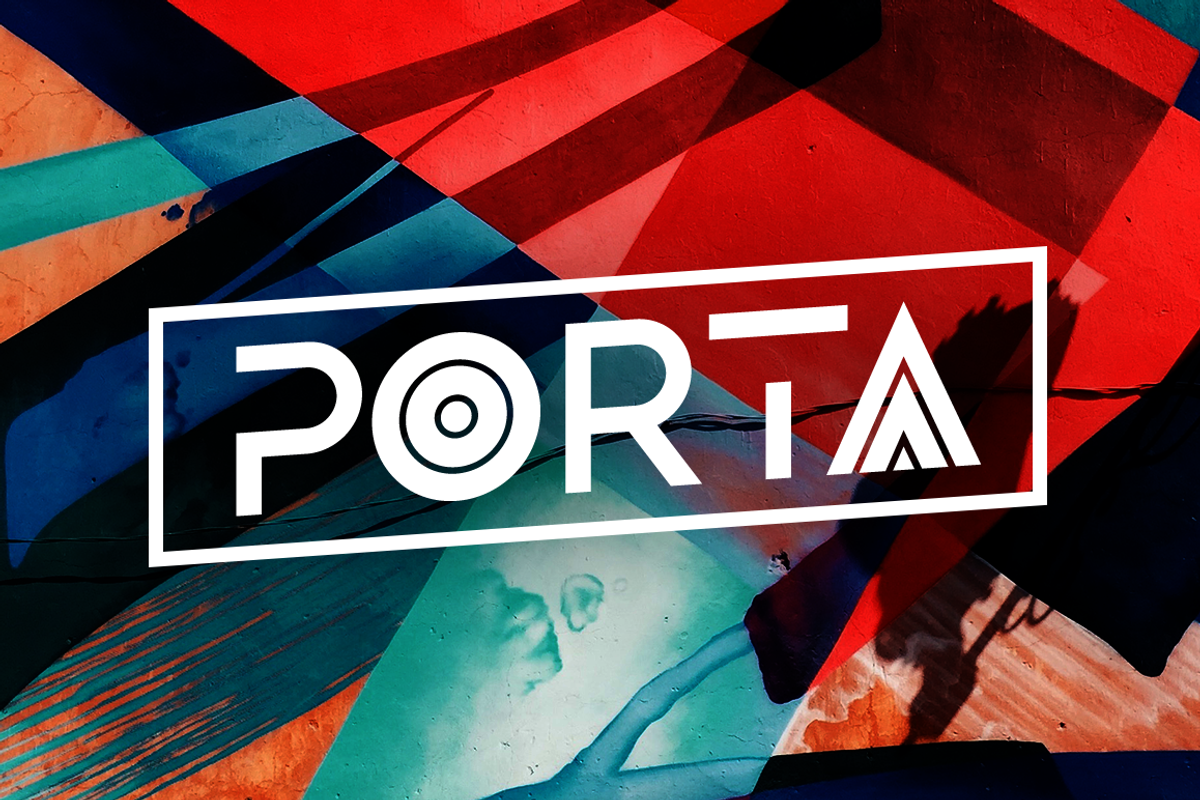
Elevate your design projects with Porta - Creative Sans Font Free Download. This modern sans serif font features clean lines, geometric shapes, and a contemporary aesthetic, making it perfect for branding, websites, social media graphics, editorial design, and corporate materials.
Porta is designed for versatility, offering a sleek and professional appearance without compromising readability. It includes uppercase and lowercase letters, numerals, punctuation, and multilingual support—ideal for testing layout concepts that require a bold, modern approach.
Whether you’re working on a minimalist brand identity or a sleek digital campaign, Porta provides the perfect balance of style and functionality. For any commercial use, please make sure to purchase the appropriate license. Download Porta - Creative Sans Font Free Download today and bring modern elegance to your typography.